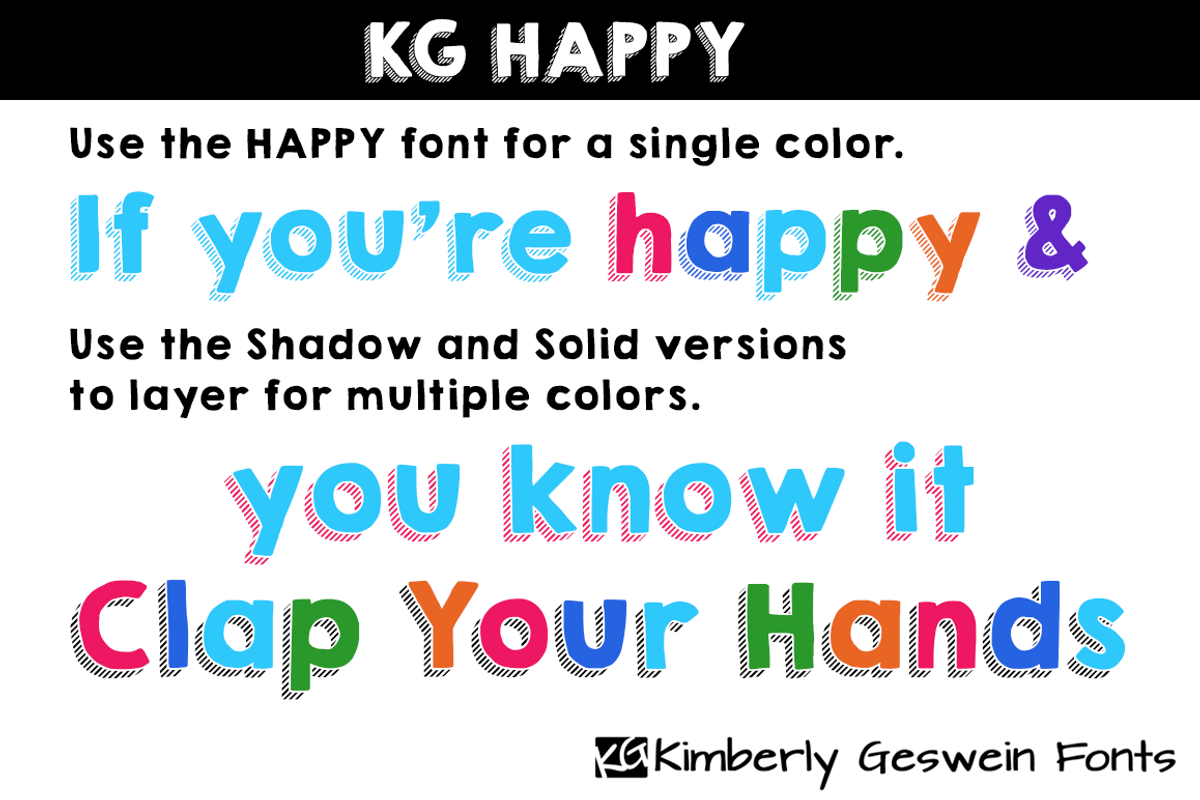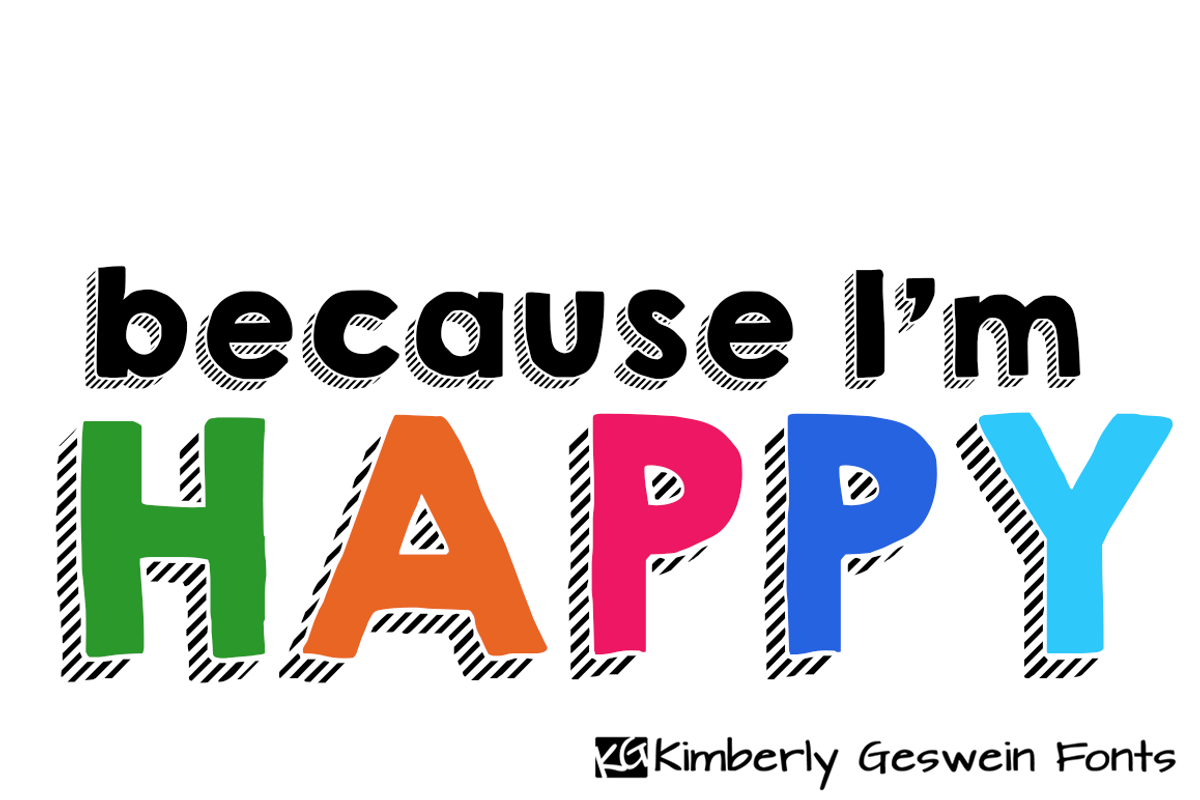
KG HAPPY
KG HAPPY by Kimberly Geswein Fonts is a font selected for branding, posters, packaging, typography.
KG HAPPY by Kimberly Geswein Fonts fits naturally into Branding, posters, packaging, typography.